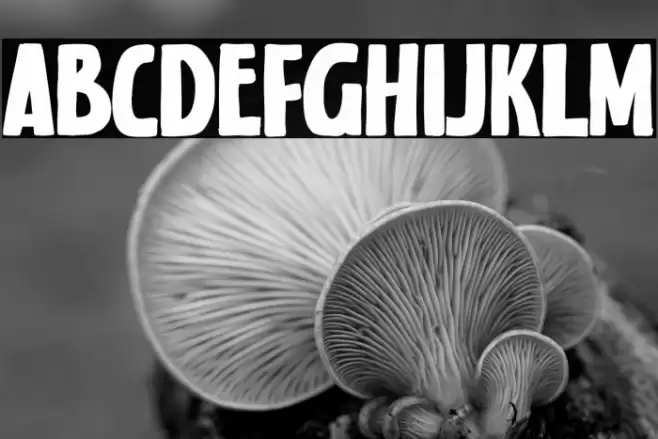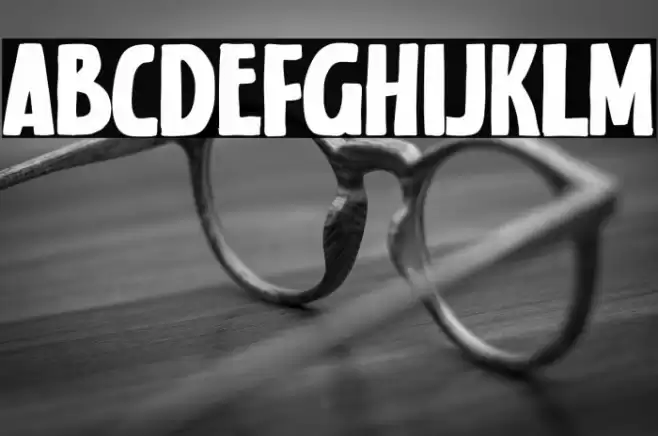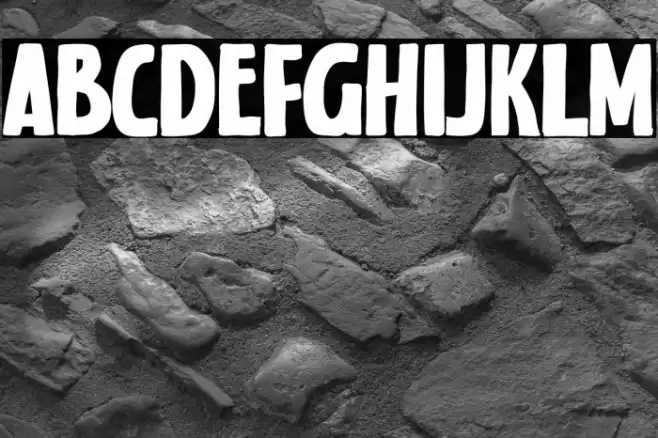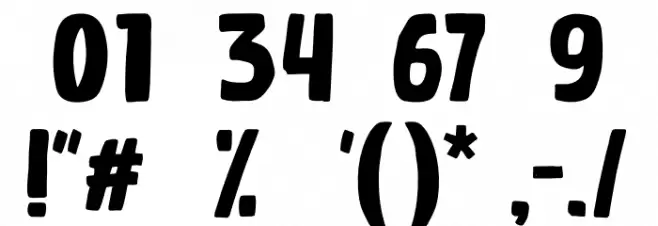
Nora Notes Font
Nora Notes Description
This font features bold, hand-drawn characters with a playful and informal style. The letters are slightly irregular, giving them a unique, organic feel. The uppercase and lowercase letters are consistent in their boldness, with rounded edges that add to the friendly appearance. The numbers and special characters maintain the same hand-crafted look, ensuring a cohesive design throughout. This font is perfect for projects that require a personal touch, such as children's books, casual invitations, or creative branding. Its boldness and distinct style make it stand out, while the uniformity in character size and shape ensures readability.
A bold, hand-drawn font with a playful and informal style from Uncategorized fonts.
- Font: Nora Notes
- Proposed Projects: Ideal for children's books, casual invitations, creative branding, and playful designs.
- Overall Style: Playful